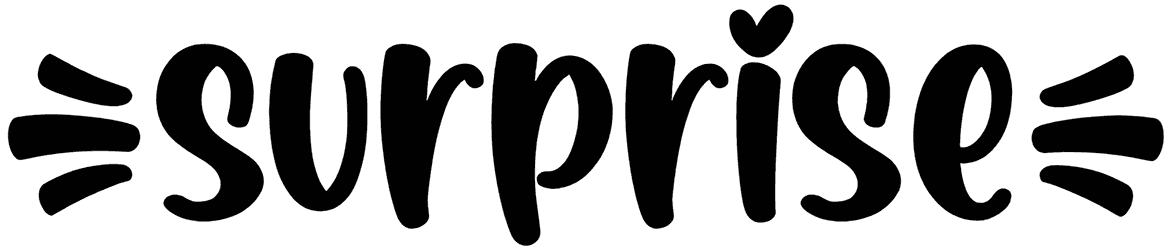
Surprise Font
Don’t think this font needs much further introduction than its name already does. So Surprise is a great way to decorate your birthday or other surprise party banners, ironically, no surprises here!
But other than that, this Valentine’s Day font also suggests itself for designing stickers, love notes, and spring posters for any advertising purpose. It’s like you can’t get enough of using it, even on a daily basis, that is, if you care about your emotional bond with the reader.